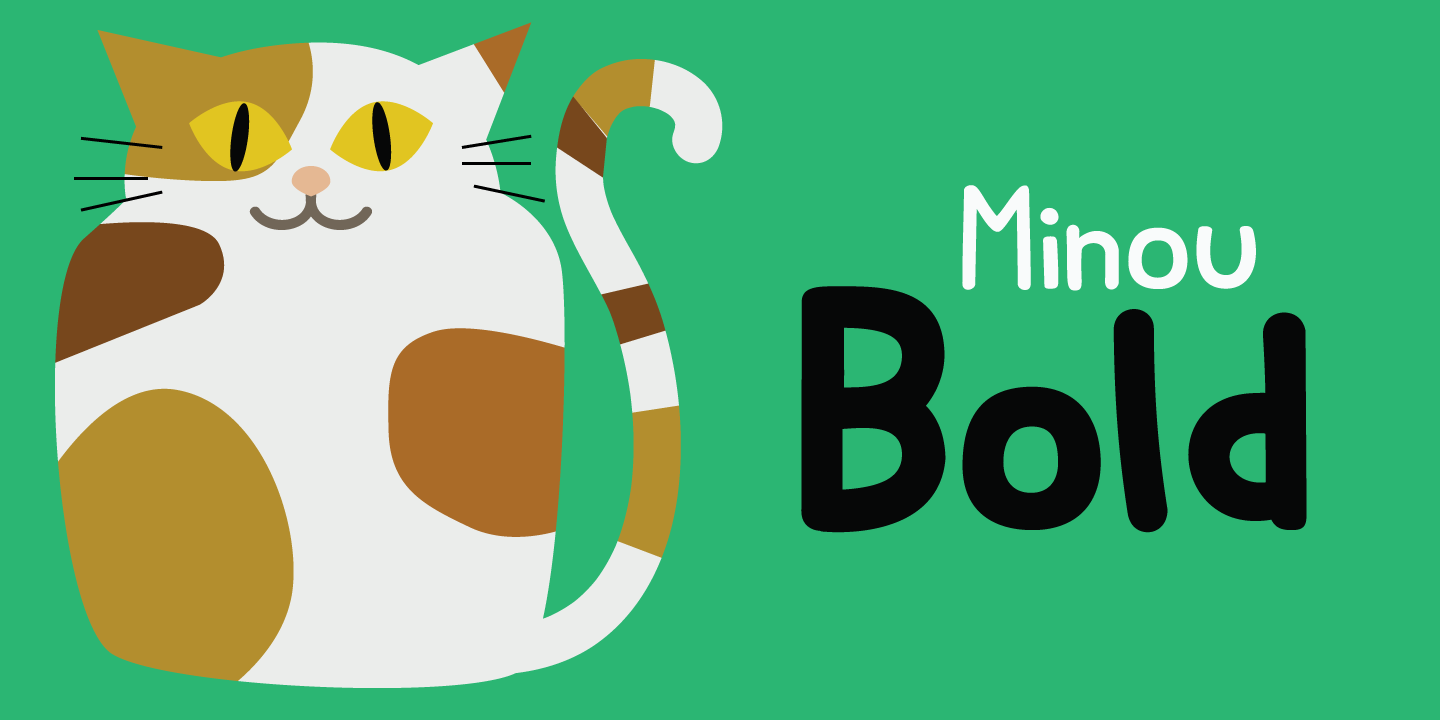
Minou Font is perfect for French pet boutiques, adorable children's books, cute cat cafés, charming French bakeries, whimsical toy stores, elegant pet grooming salons, playful children's clothing brands, sweet French patisseries, endearing greeting cards, and delightfully cute French-inspired designs.
Minou Font is exciting because it purrs with French charm and adorable sweetness through delicate letterforms that capture the endearing cuteness of French kittens and the irresistible appeal of all things mignon, making it perfect for brands celebrating sweetness, charm, and the universal language of cute.
The Minou Font family includes regular weight with adorable alternates, French-inspired ornaments, and cute decorative elements, providing designers with charming tools for creating typography that melts hearts with authentic French sweetness and irresistible cuteness.
When your project needs French cuteness and adorable charm, Minou Font Free Download delivers the perfect typographic caress for sweet communications. This charming display typeface combines French cultural sweetness with contemporary functionality, ensuring your brands resonate with audiences seeking genuine charm and adorable experiences. The delicate letterforms and cute styling make this font an essential choice for pet businesses, children's brands, and any application where French charm, adorable appeal, and irresistible cuteness are crucial for creating memorable experiences that celebrate the universal joy of cute things and the tender moments that make hearts smile with the kind of pure sweetness that only French charm and adorable design can deliver to audiences who appreciate life's most precious and endearing moments.